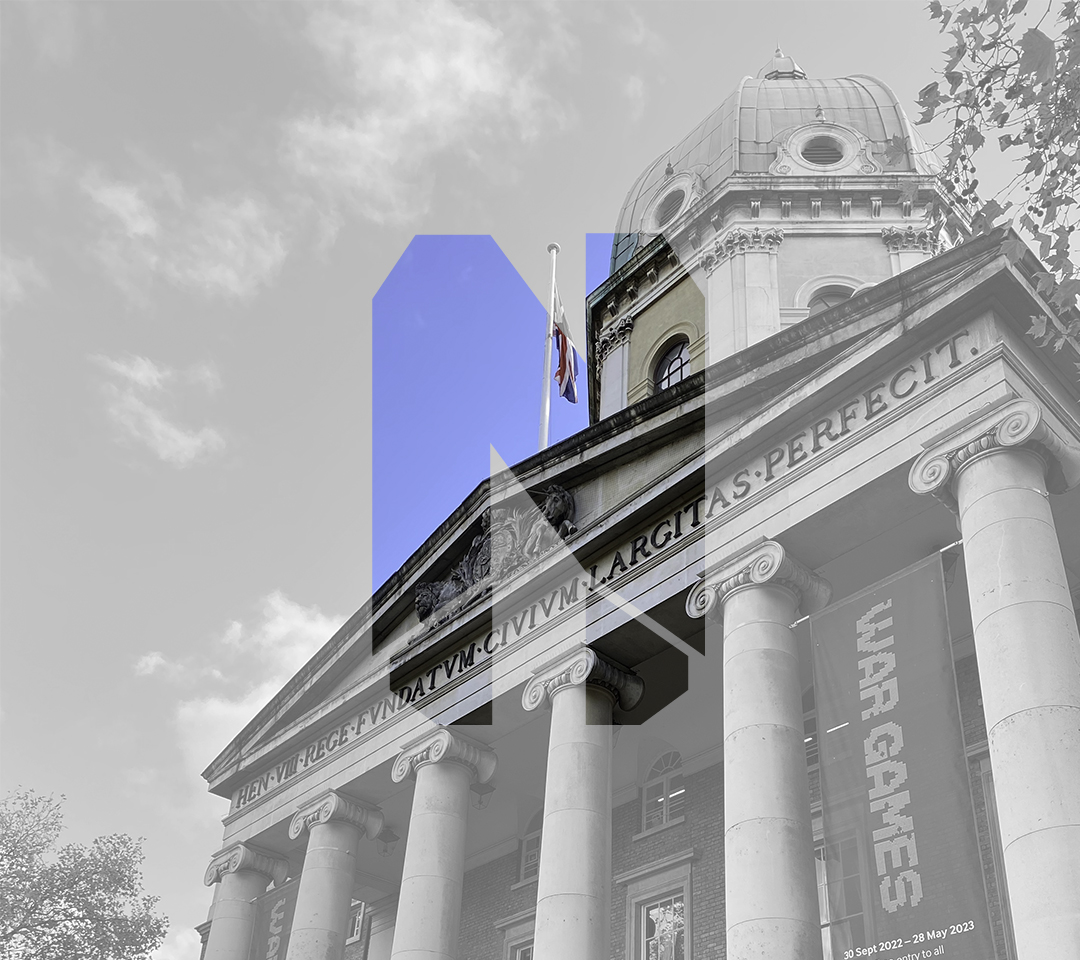
This font is designed based on the cracked elements inside and outside the building, which explains the scene of war very well. The letters 'W', 'U' and 'V' were partly inspired by the tanks that lined the front of the Imperial War Museum building. Some of the outline features of the letters also partly refer to the architectural appearance of the museum, the top dome of the museum. This typeface features a bold body with a heavyweight. The most obvious feature is that they are all composed of disconnected parts, symbolizing that war separates everyone and loss of contact.